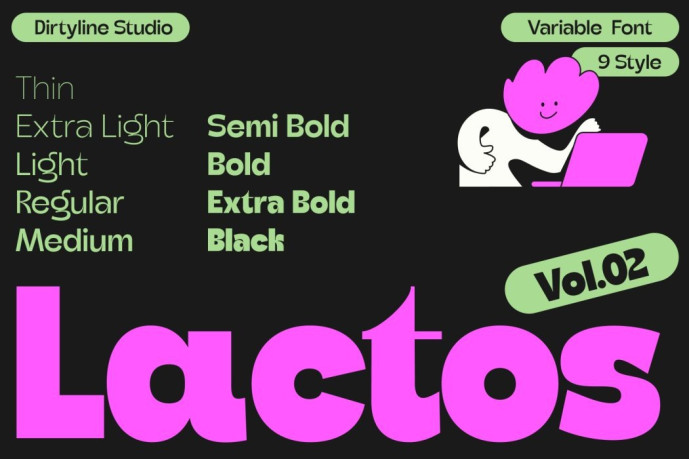
Lactos Font
Designer: Hendra Maulia, Aulia Rahman
Lactos Font is a dynamic variable sans-serif font designed by Dirtyline Studio. It breaks conventional design rules with its dramatic width contrast and playful character.